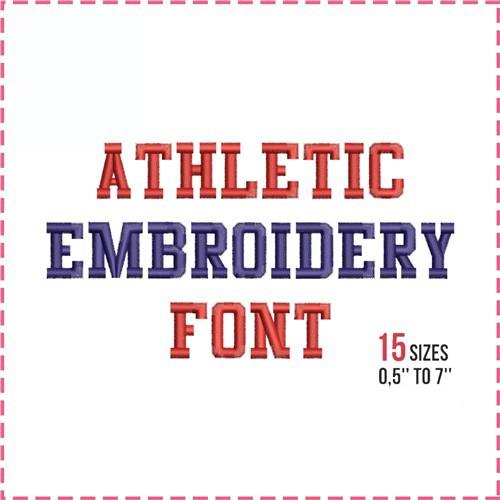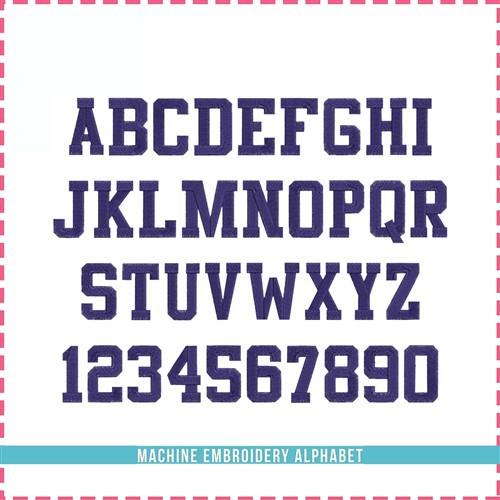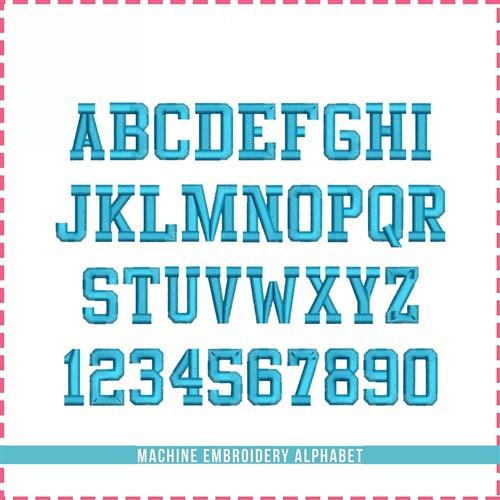
Maya Kreations is happy to present Athletic machine embroidery font which has Bold athletic block machine embroidery font with vibrant colors, perfect for sports apparel on jerseys and caps. Available in PES, DST, and six other formats. included. If you would like to view more embroidery fonts and alphabets please search our embroidery fonts page.